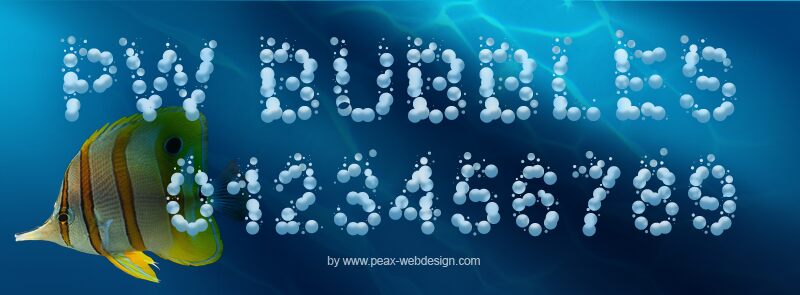
PW Bubbles by Peax Webdesign is a free cartoon display font whose letters are assembled from clusters of round bubbles and tiny scattered dots. The uneven circles swell and pinch the silhouettes, giving each character a lively, foamy edge rather than a smooth outline.
Children's event posters and fizzy drink packaging both suit this bubbly construction, one for its playful movement and the other for its clear link to foam and carbonation. It also suits candy branding and upbeat music merchandise. In those settings, the lettering can become part of the illustration itself, suggesting bubbles, beads, or popping candy instead of serving as ordinary type.